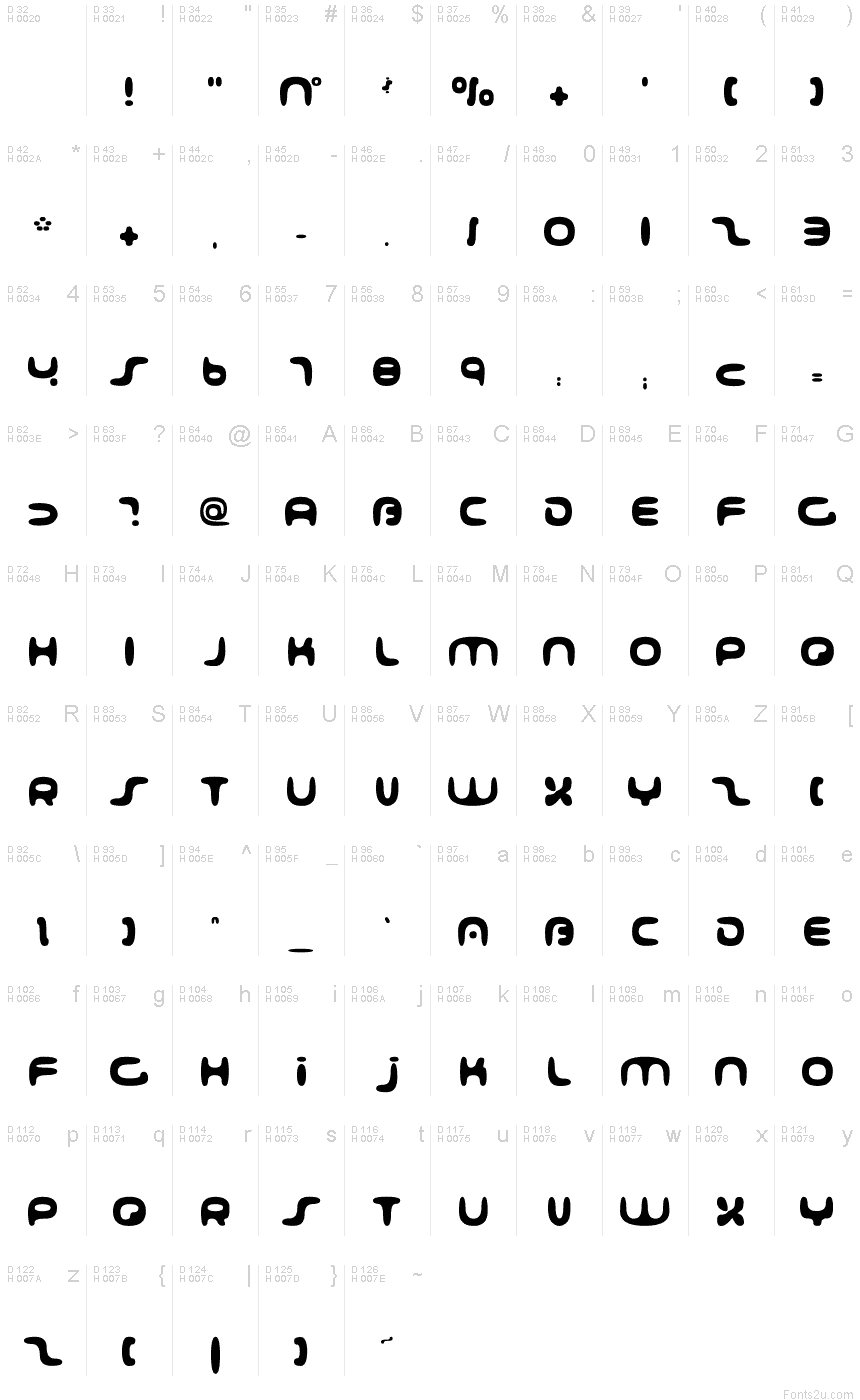
001 Interstellar Log
001 Interstellar Log font by Yellowyellow is a free futuristic display typeface. Its thick, pill-shaped forms and mirrored curves feel like glyphs stamped on the side of a spacecraft-smooth, weighty, and slightly otherworldly. The tight rhythm of its rounded blocks creates a bold, unified texture, so even short words read like icons rather than plain text.
Using 001 Interstellar Log, you can give titles and wordmarks a sci‑fi, tech-lab vibe that still feels approachable and soft. This free font shines on posters, game logos, album covers, event branding, streaming overlays, and experimental packaging. Keep it large for maximum impact, and pair it with a clean geometric sans in smaller sizes to keep layouts readable while the headline does the storytelling.